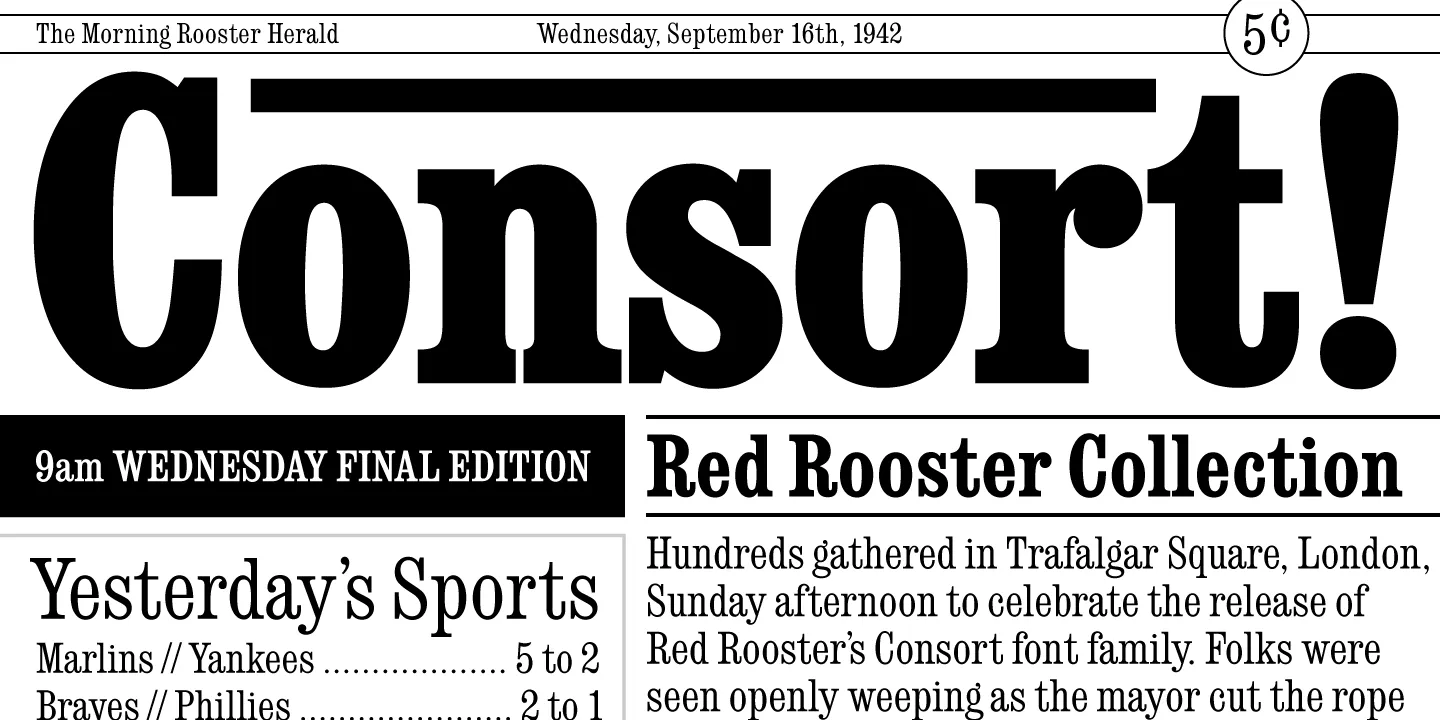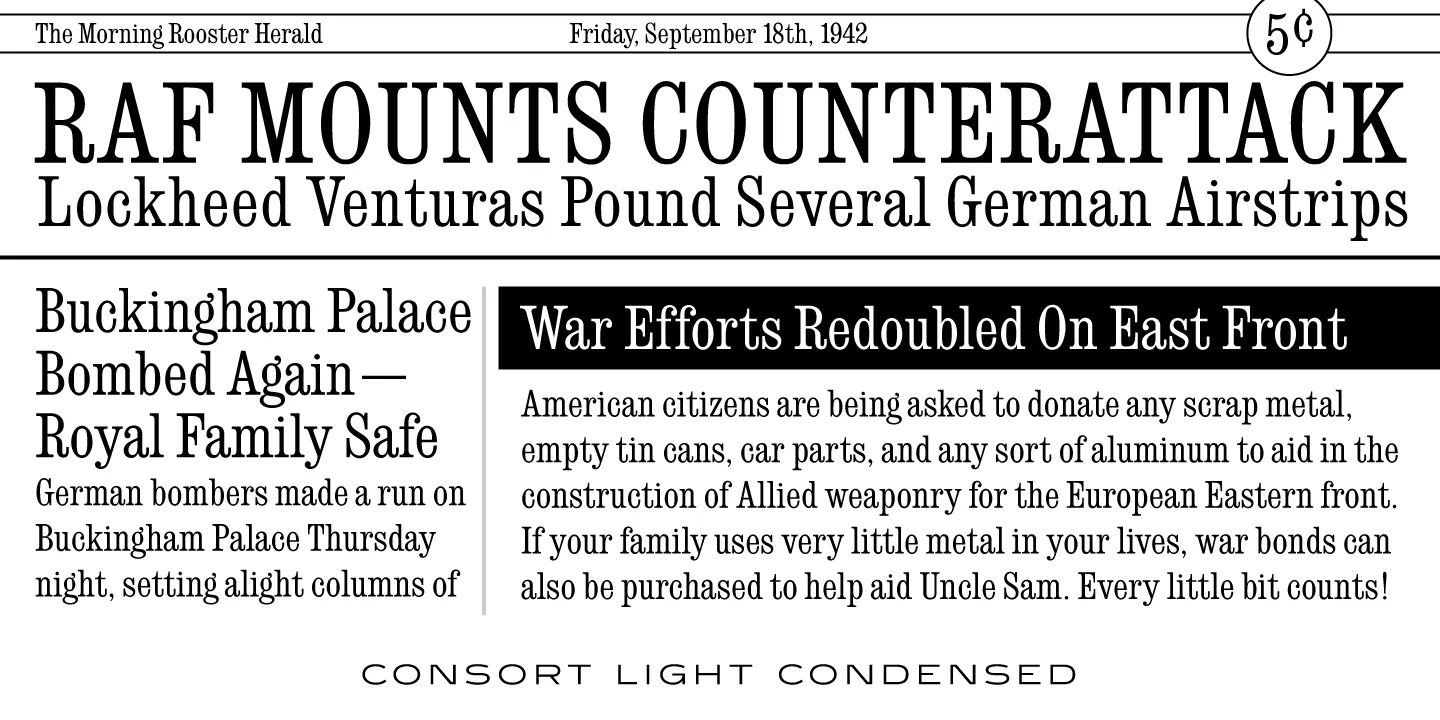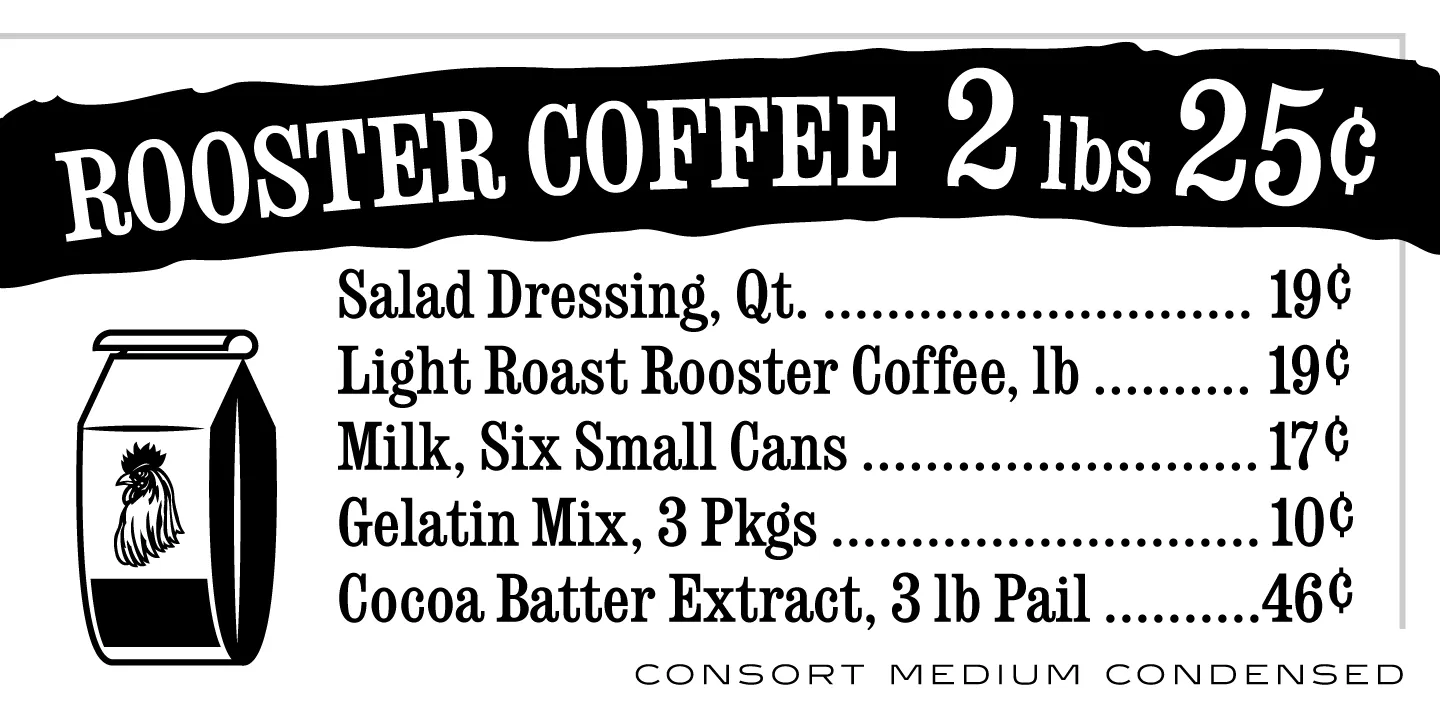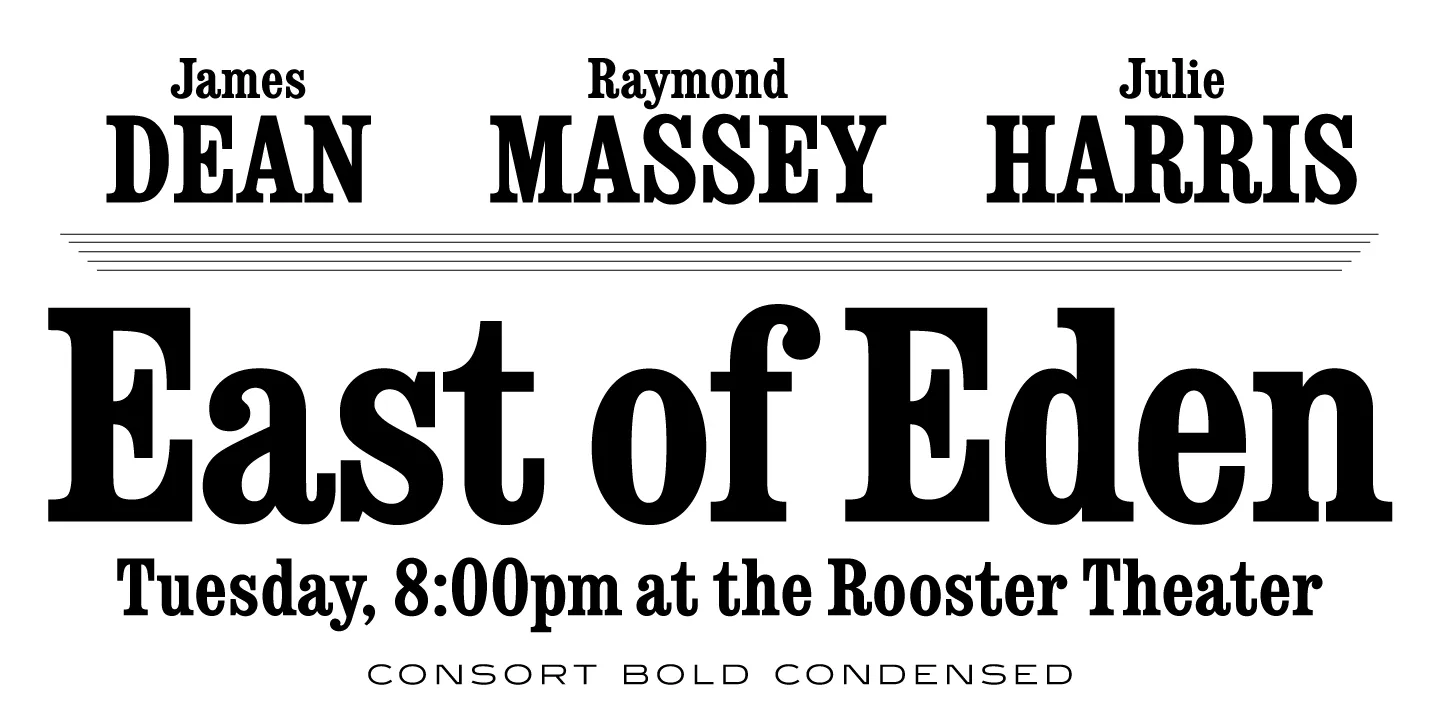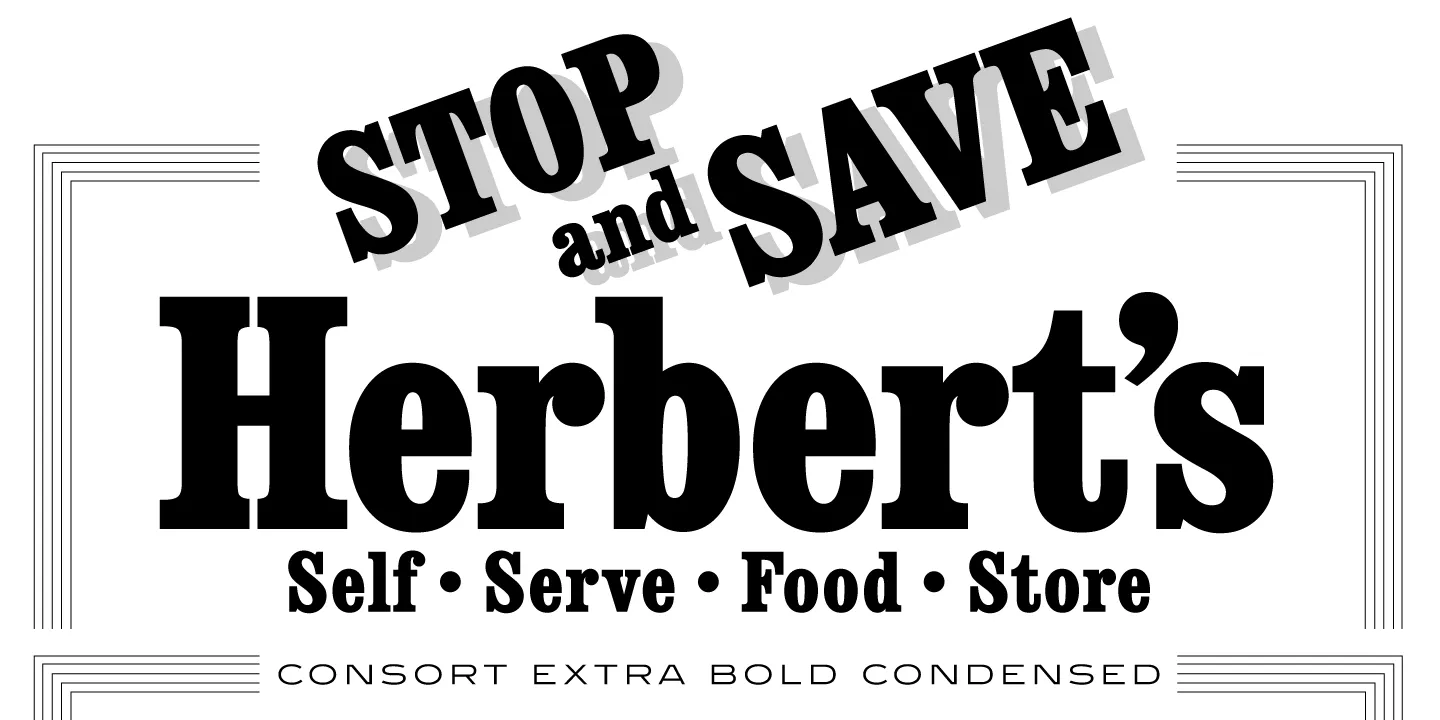
Consort Font Family
Consort Condensed is an Egyptian serif font family. It was created and produced in 1994 by Steve Jackaman (ITF), and is based on the Stephenson Blake designs. International TypeFounders exclusively licensed the Consort Condensed family from the Techni-Process (TP) Collection. Consort has a classic, sturdy feel, and sets well in text, subhead, and display sizes.